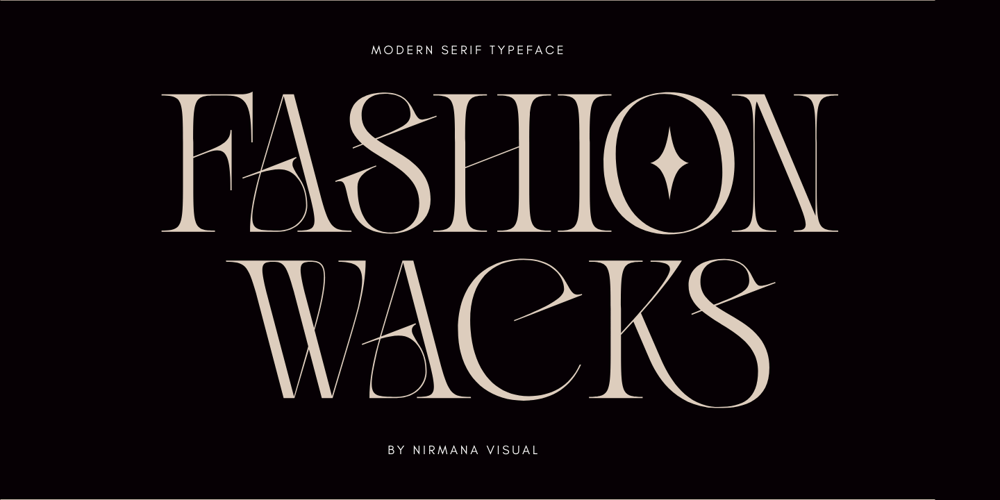
Fashion Wacks Font Family was designed by Sigit Dwipa and published by Nirmana Visual. Fashion Wacks contains 1 styles and family package options. Fashion Wacks , contemporary of serif font, Inspired by all the retro aesthetics making a comeback,Fashion Wacks offers beautiful typographic harmony for a diversity of design projects, including logos & branding, social media posts, advertisements & product designs.